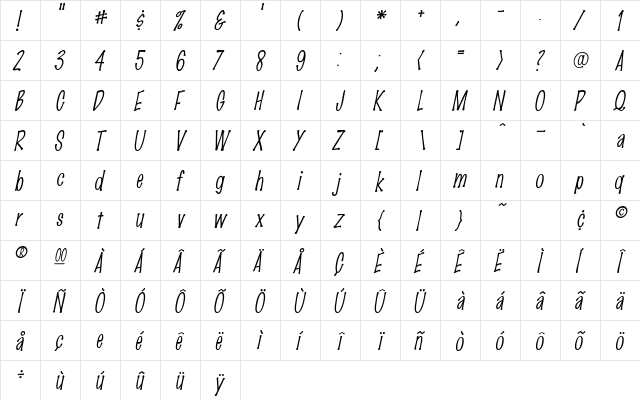
MarkerBoardLightSSK Italic Font Preview
MarkerBoardLightSSK Italic
Design Context for MarkerBoardLightSSK Typeface
MarkerBoardLightSSK takes a measured approach to typography — its balanced proportions and neutral character make it a reliable workhorse for both digital and print work. The slanted form adds forward momentum and visual energy. The delicate stroke weight brings airiness and refinement to layouts.